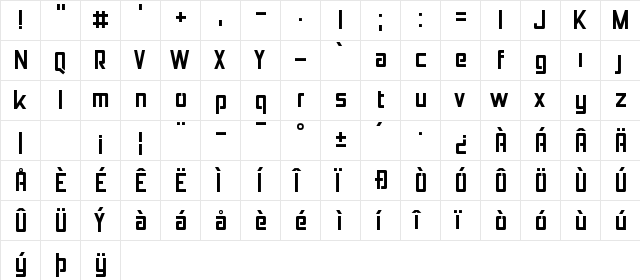
Jolana Regular
| Designer | Zdenek Gromnica a.k.a. FutureMillennium |
Design Context for Jolana Typeface
Jolana offers clean, dependable letterforms without strong stylistic allegiance, making it a practical choice for designers who need flexibility.